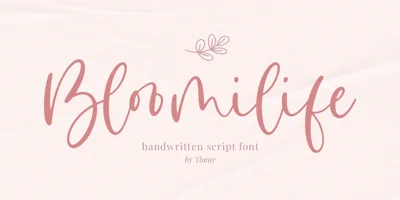
Bloomilife Font
Bloomilife Font offers designers a vibrant typeface that embodies natural growth and wellness sophistication with organic elegance. However, for commercial use, you must purchase this font. You can download it for free for testing purposes only.
Bloomilife Font excels in wellness design applications including organic lifestyle branding, natural health centers, botanical garden signage, wellness retreat materials, organic food packaging, eco-friendly product labels, holistic healing practices, sustainable living campaigns, nature-focused magazines, and flourishing lifestyle brands. This nurturing typeface brings botanical authenticity to wellness-focused design projects.
What makes Bloomilife Font truly exciting is its perfect capture of natural blooming processes with flowing letterforms that evoke flower petals and organic growth through graceful design elements. The font features gently curved characters with botanical proportions and life-affirming energy that convey renewal, vitality, and the transformative power of natural living. Its wellness personality and organic character make it ideal for brands celebrating healthy lifestyles, natural healing, and audiences who appreciate sustainable living, holistic wellness, and the profound connection between personal health and environmental harmony that defines conscious living.
The Bloomilife Font family typically includes multiple weights with potential organic flourishes and botanical elements that enhance its wellness character. These nurturing options provide designers with complete natural styling while maintaining the font's distinctive organic elegance and life-affirming presentation across various wellness applications and sustainable contexts.
Whether you're developing wellness branding, creating organic campaigns, or designing natural lifestyle materials, Bloomilife Font delivers the wellness authority and organic sophistication that health-focused projects require. Its exceptional vitality and natural appeal make it invaluable for designers working with wellness centers, organic brands, and sustainable organizations requiring typography that celebrates natural healing, organic living, and the beautiful journey of personal growth that flourishes when people embrace holistic wellness practices and sustainable lifestyle choices that nurture both individual health and environmental wellbeing.